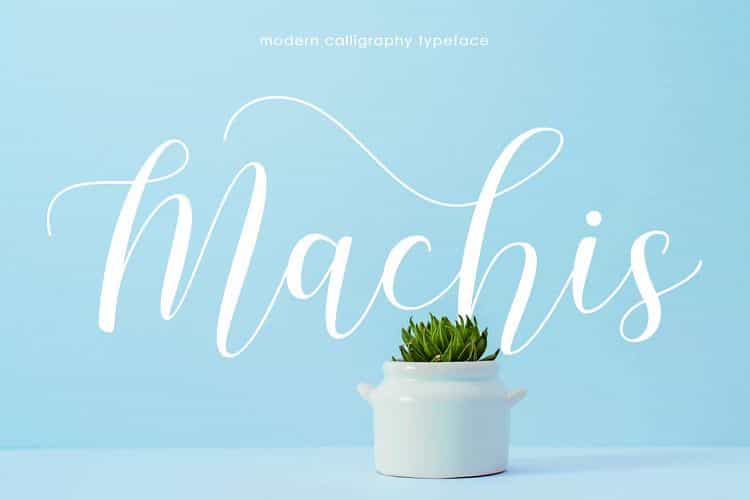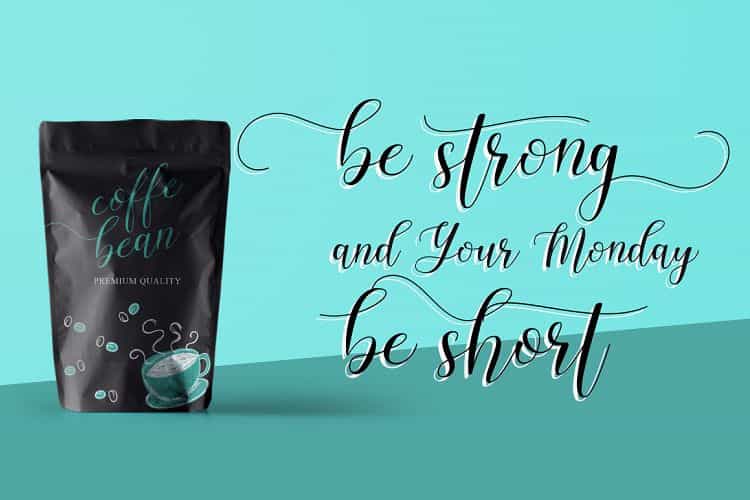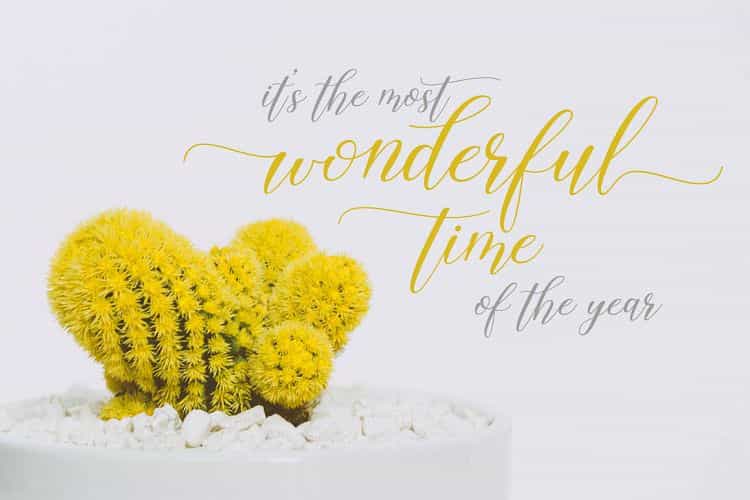
Discover Machis Calligraphy Font, part of the Calligraphy collection—a versatile and unique font perfect for adding a personal touch to your projects. Download it for free and enjoy crafting designs with style, from invitations to social media posts. This font is available exclusively for personal use, giving you the freedom to create without limits. Unlock your creativity with Machis Calligraphy Font today!
Machis Font is currently a calligraphy type of the lettering style font kind. It is a very attractive and creative handwriting font for the generation of calligraphy. Though the scratches are different they all result to a realistic and modern touch. It has astonishing swashes in 3 types which in one way or the other means you are able to design different items with a single download.